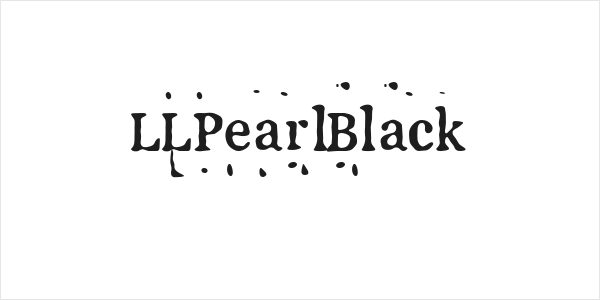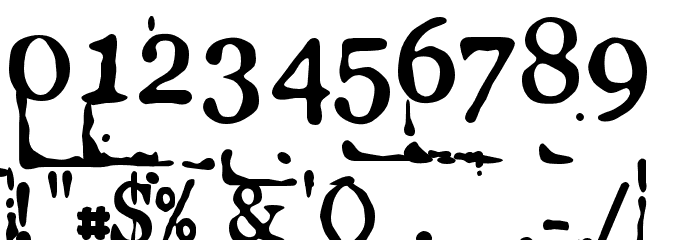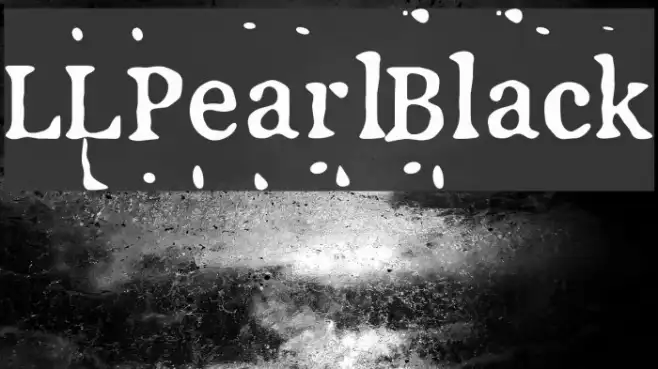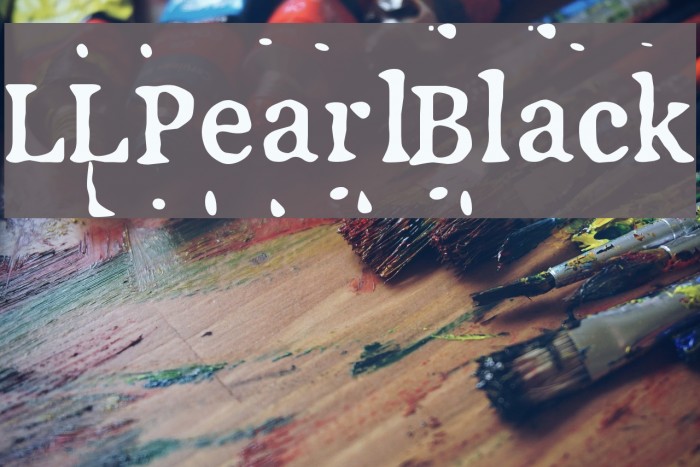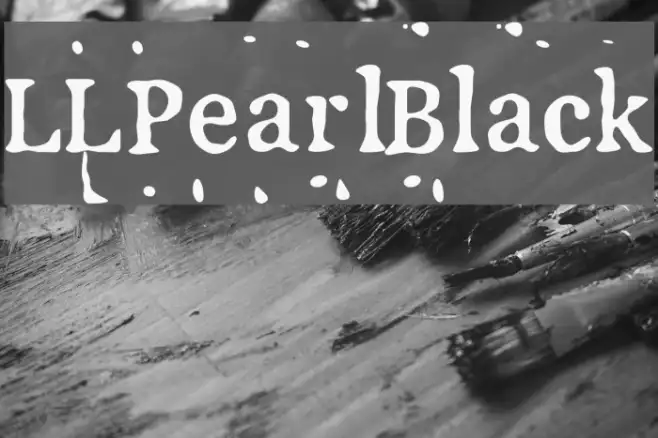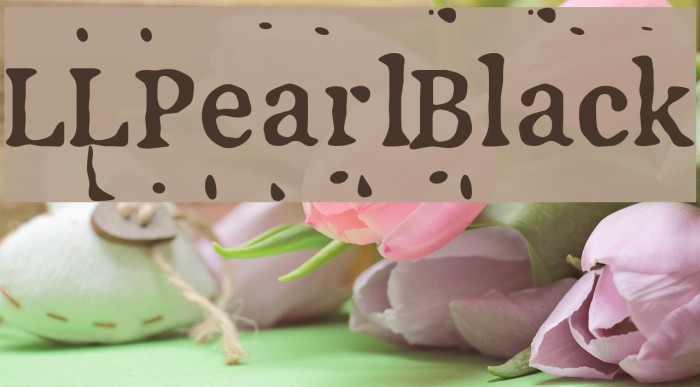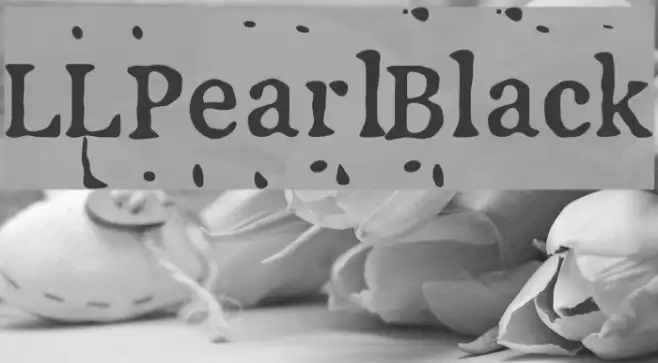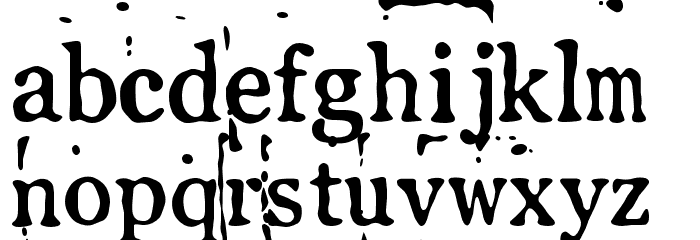
LLPearlBlack Font
LLPearlBlack Description
This font features a distressed, grunge style with a vintage appeal. The characters are bold and have a rough, textured appearance, giving them a worn and weathered look. The uppercase and lowercase letters maintain a consistent style, with slightly irregular edges that add to the font's unique character. The numerals and special characters follow the same design, ensuring a cohesive appearance across all glyphs. This font is ideal for projects that require a rustic or antique aesthetic, such as posters, album covers, or themed event invitations.
| Proposed Projects | Ideal for vintage posters, album covers, themed event invitations, and rustic branding. |